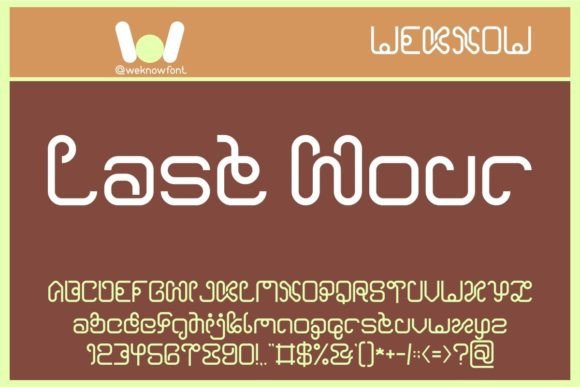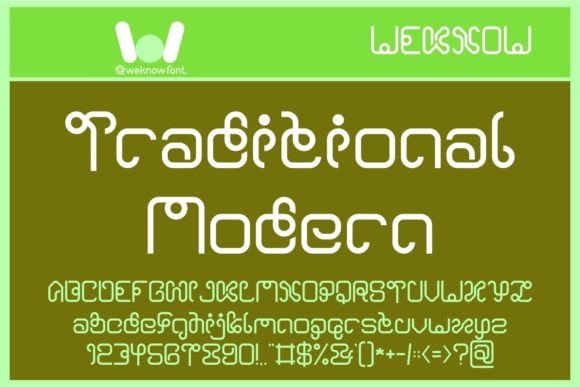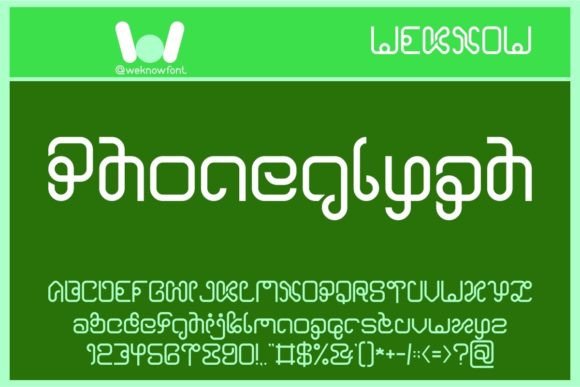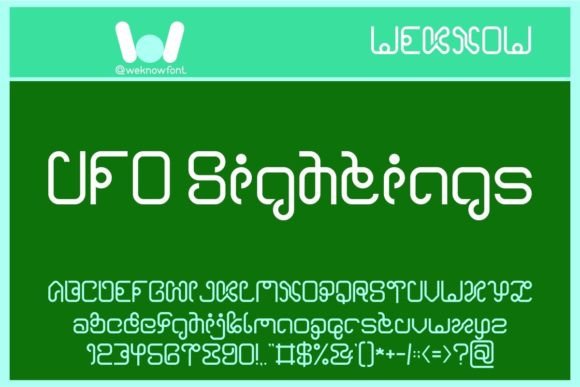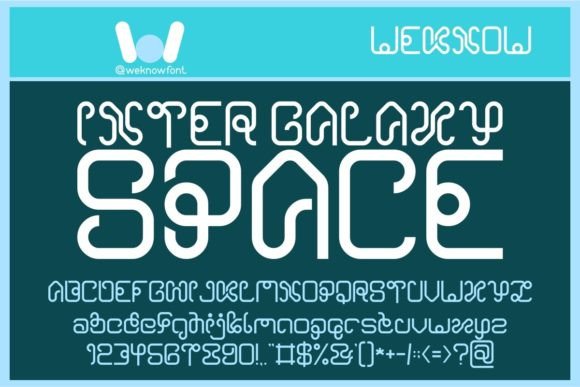
Introducing Figuratively Font: The Ultimate Display Font for Creative Projects
Are you a designer, craftsperson, or creative enthusiast looking for a font that can elevate your visual projects? Look no further than Figuratively Font, a stunning display font perfect for a wide range of applications. In this article, we’ll explore the features, benefits, and uses of Figuratively Font, and why it’s a must-have for any creative professional.
What is Figuratively Font?
Figuratively Font is a fancy display font designed to make a statement. Its unique and elegant style makes it suitable for various creative projects, including logos, logotypes, headlines, corporate identities, brand identities, apparel, posters, music, movies, games, magazines, books, comics, cartoons, YouTube, Instagram, websites, and more.
Key Features of Figuratively Font
- Unique and Elegant Style: Figuratively Font boasts a distinctive and sophisticated design that will set your projects apart from the rest.
- High Versatility: This font is suitable for a wide range of applications, from print materials to digital platforms.
- Easy to Read: Despite its ornate design, Figuratively Font remains highly legible, making it perfect for headlines, titles, and short texts.
- Scalable: This font is designed to look great at any size, from small captions to large billboards.
Benefits of Using Figuratively Font
So, why choose Figuratively Font for your next project? Here are just a few benefits:
- Adds Visual Impact: Figuratively Font is sure to grab attention and make your project stand out.
- Enhances Brand Identity: This font can help establish a strong brand identity and create a lasting impression.
- Versatile and Adaptable: Use Figuratively Font across various mediums, from print to digital, without worrying about compatibility issues.
- Time-Saving: With Figuratively Font, you can create stunning visual content quickly and efficiently.
Who Can Benefit from Figuratively Font?
Figuratively Font is an excellent choice for:
- Graphic Designers: Add a touch of elegance and sophistication to your designs.
- Crafters and Makers: Use Figuratively Font to create eye-catching labels, packaging, and branding materials.
- Marketing and Advertising Professionals: Create attention-grabbing headlines and campaigns with this font.
- Content Creators: Elevate your YouTube, Instagram, or blog content with a unique and stylish font.
Tips for Using Figuratively Font
To get the most out of Figuratively Font, keep the following tips in mind:
- Use it Sparingly: Reserve Figuratively Font for headlines, titles, or key messages to avoid overwhelming your audience.
- Pair it with Other Fonts: Combine Figuratively Font with simpler fonts to create visual interest and hierarchy.
- Experiment with Colors and Textures: Take advantage of Figuratively Font’s versatility by trying out different colors and textures.
Figuratively Font is a powerful tool for any creative professional looking to add a touch of elegance and sophistication to their projects. With its unique style, versatility, and ease of use, this font is sure to become a staple in your design arsenal. Whether you’re a seasoned designer or just starting out, Figuratively Font is an excellent choice for anyone looking to make a statement.